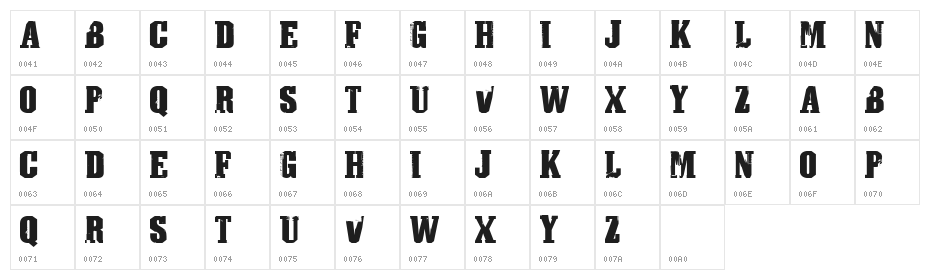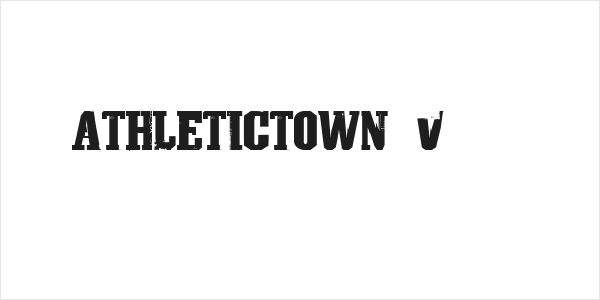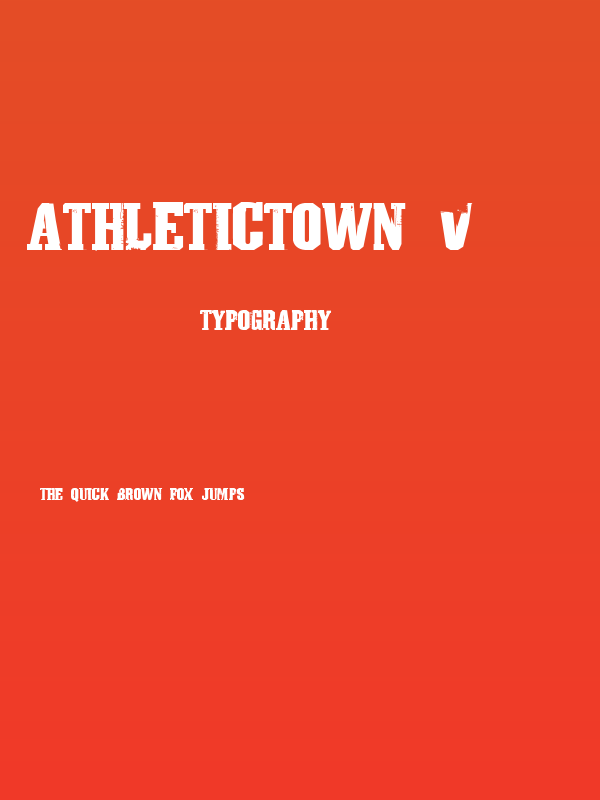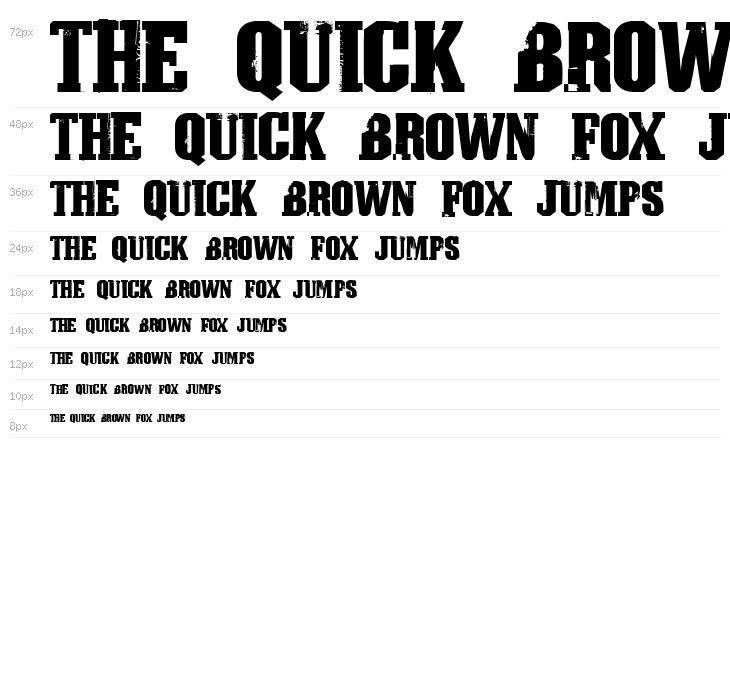
AthleticTown v0.1 Font
AthleticTown v0.1 Description
This font features a bold, athletic style with a distressed texture that gives it a rugged and vintage appearance. The uppercase letters are prominent and strong, with a slightly condensed form that enhances their impact. The distressed effect adds character and a sense of history, making it ideal for projects that require a bold statement. The font's design is reminiscent of old sports jerseys or vintage athletic branding, providing a nostalgic yet powerful look. Its unique texture and boldness make it stand out, perfect for capturing attention in various design contexts.
Overall StyleVintage
Proposed ProjectsIdeal for sports branding, vintage posters, apparel design, and bold headlines.